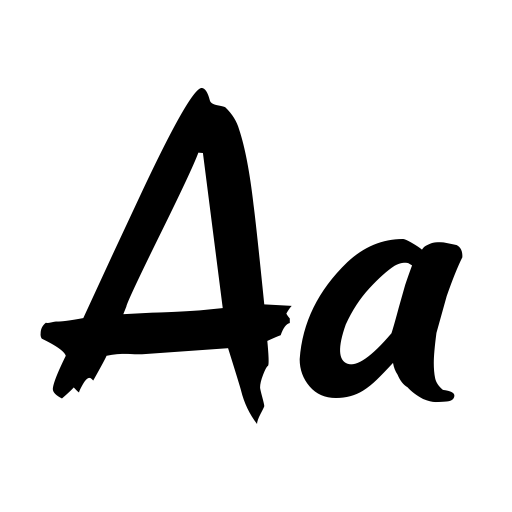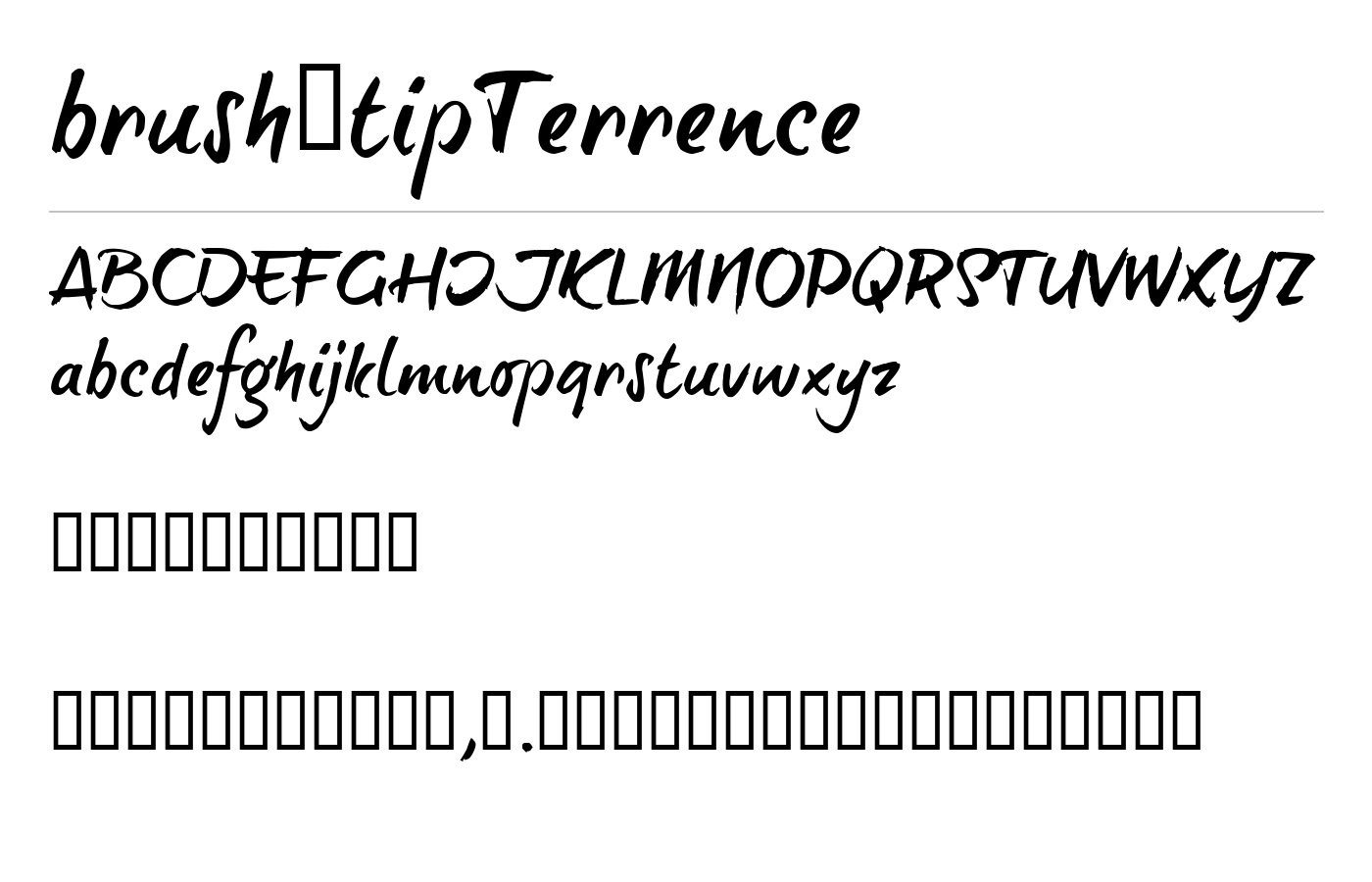
Brush-tip Terrence is a lively script font that mimics natural brush strokes with smooth, flowing lines and moderate contrast. Its casual yet dynamic style makes it perfect for creative branding, invitations, and artistic projects where a personal, hand-painted feel is desired. With clear legibility and a friendly personality, it works well in headlines and display uses that want to convey warmth and creativity.
brush-tipTerrence Font
About brush-tipTerrence Font
| Font family | brush-tipTerrence Font |
| Designer | JJW van der Ham / JOEBOB graphics |